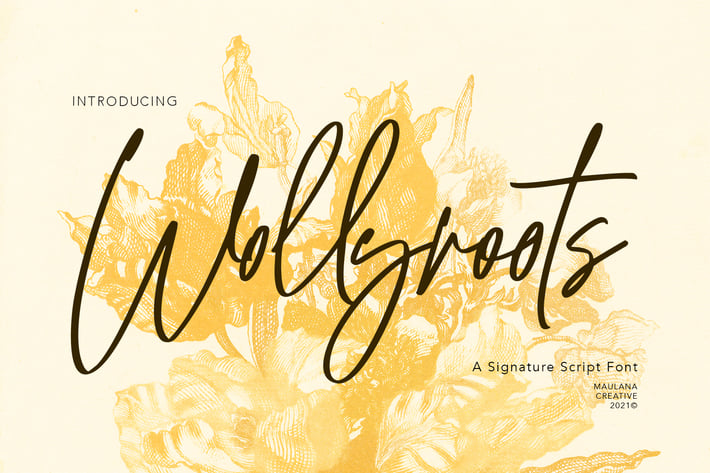
Wollyroots Signature Script Font
Wollyroots is fancy signature font, with clean felt tip stroke and fun character. It has Opentype features of ligatures character, To give you an extra creative work. Wollyroots signature font support multilingual more than 100+ language. This font is good for logo design, Social media, Movie Titles, Books Titles, a short text even a long text letter and good for your secondary text font with sans or serif. Make a stunning work with Wollyroots signature font.